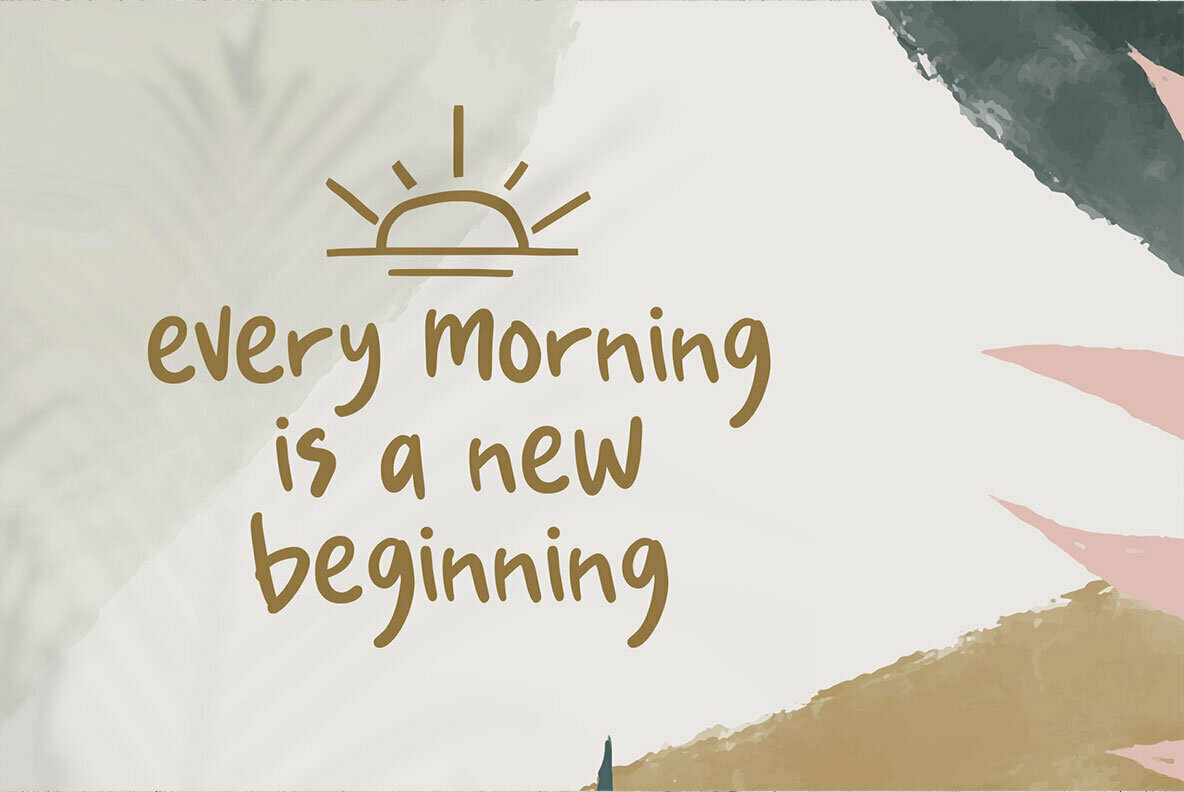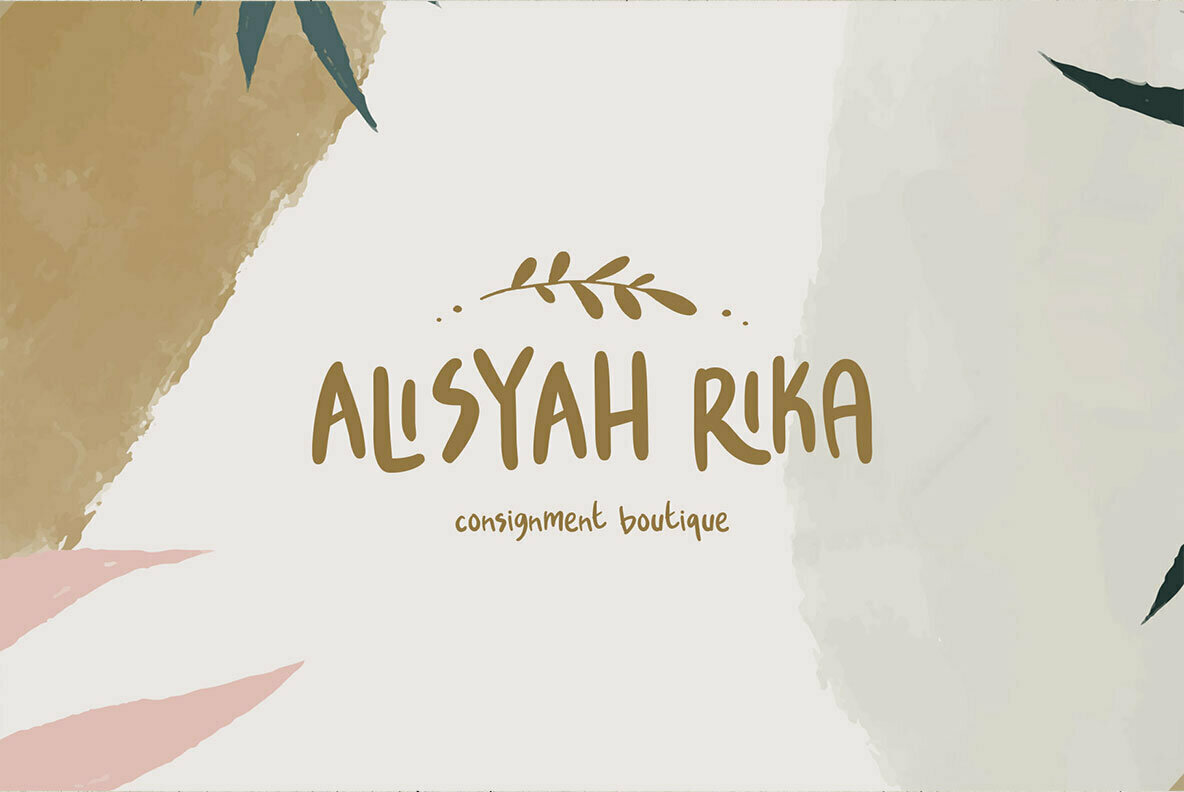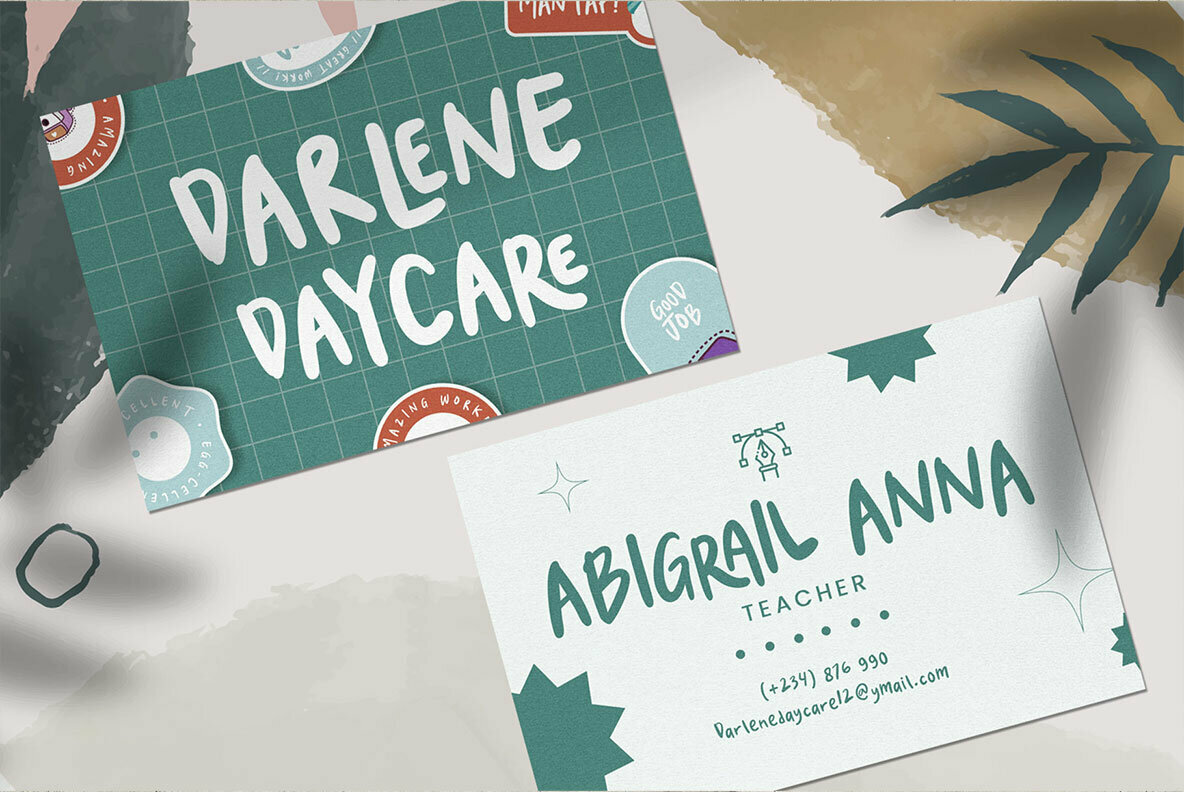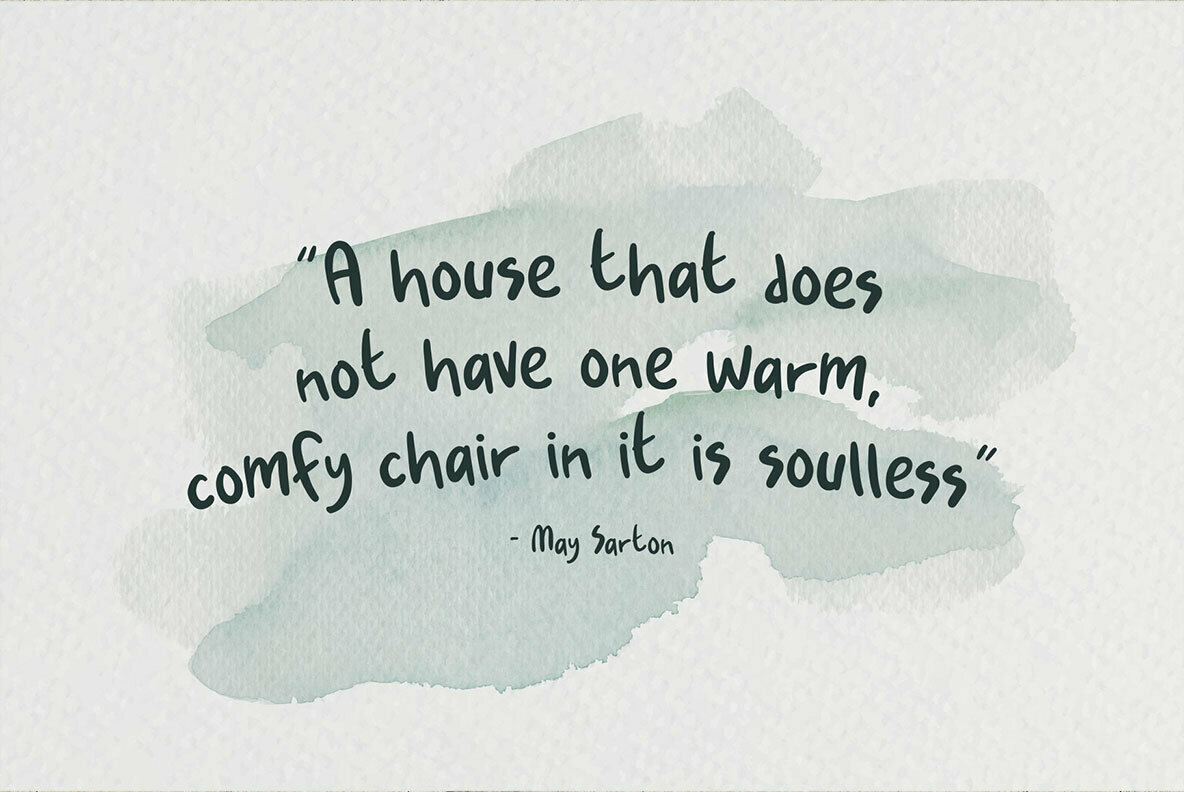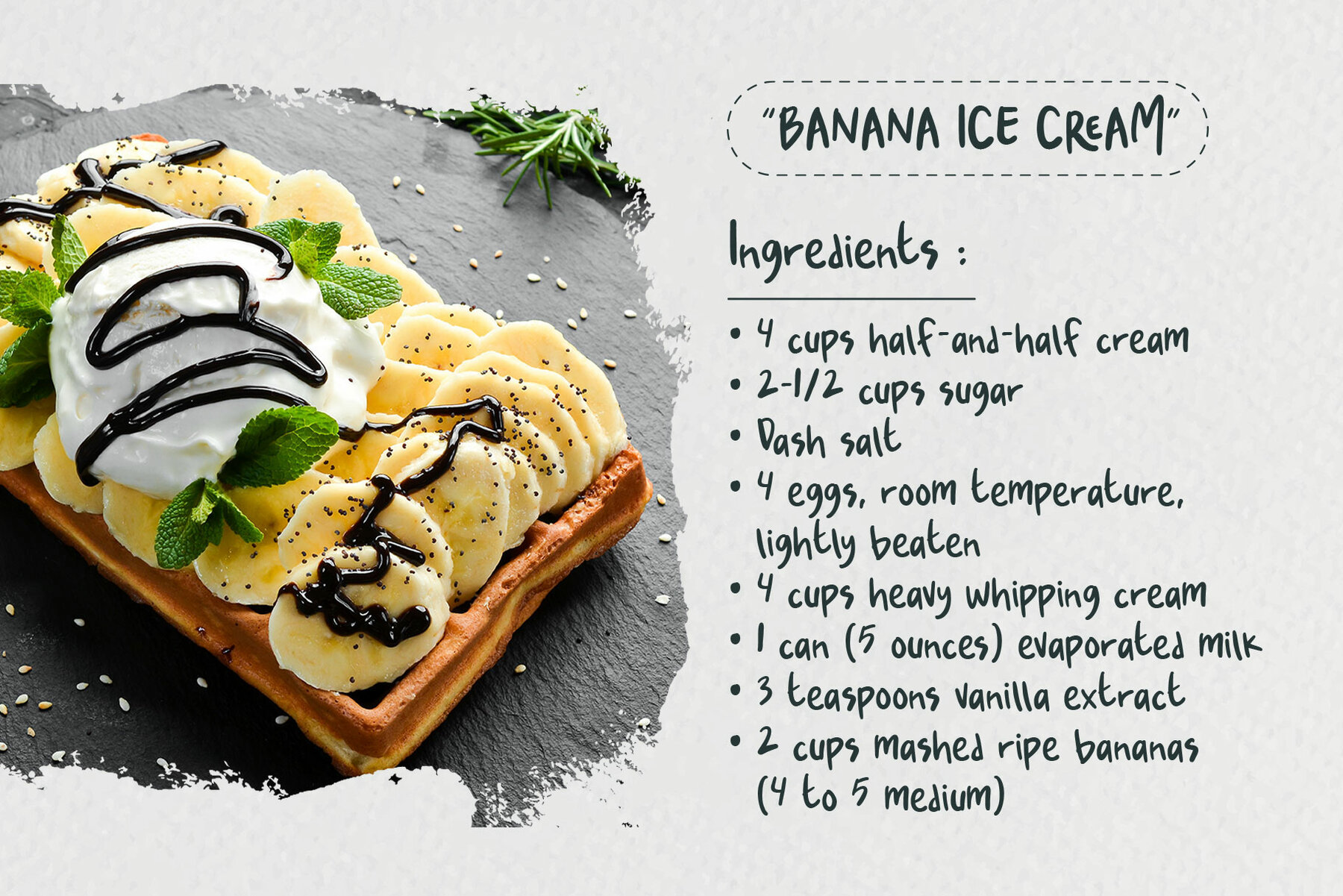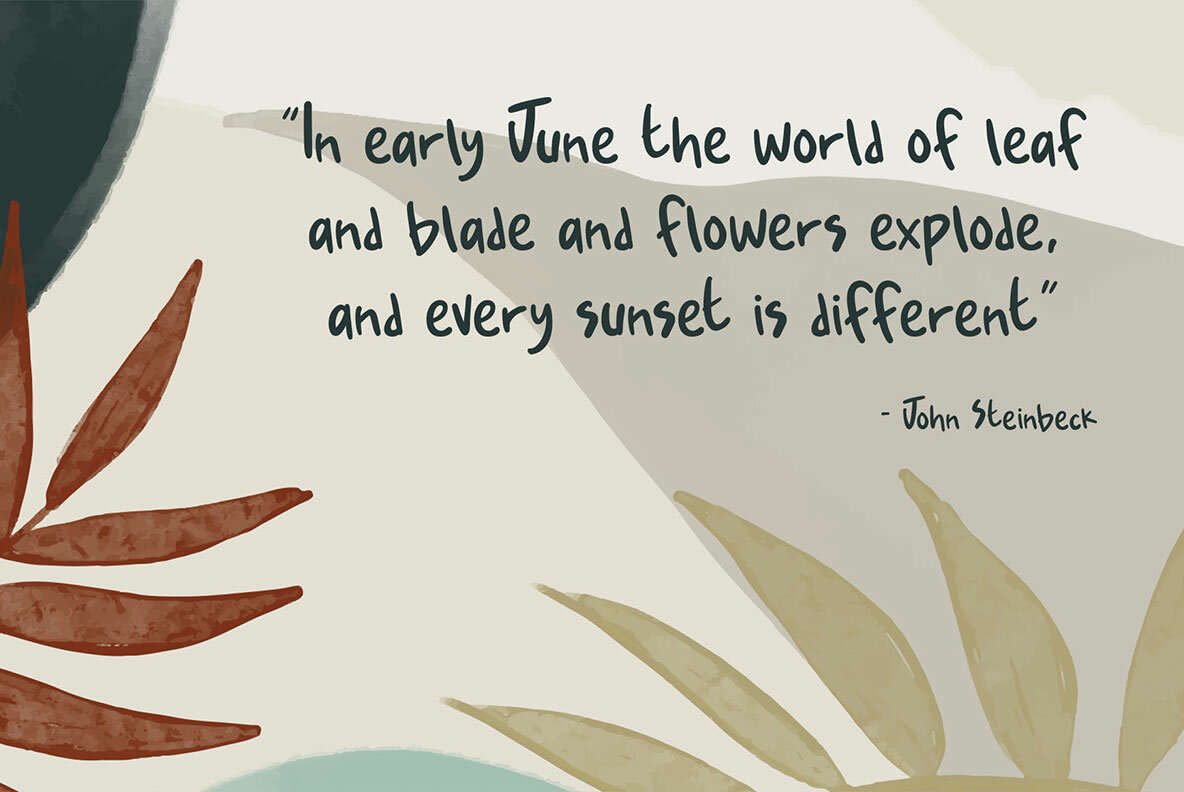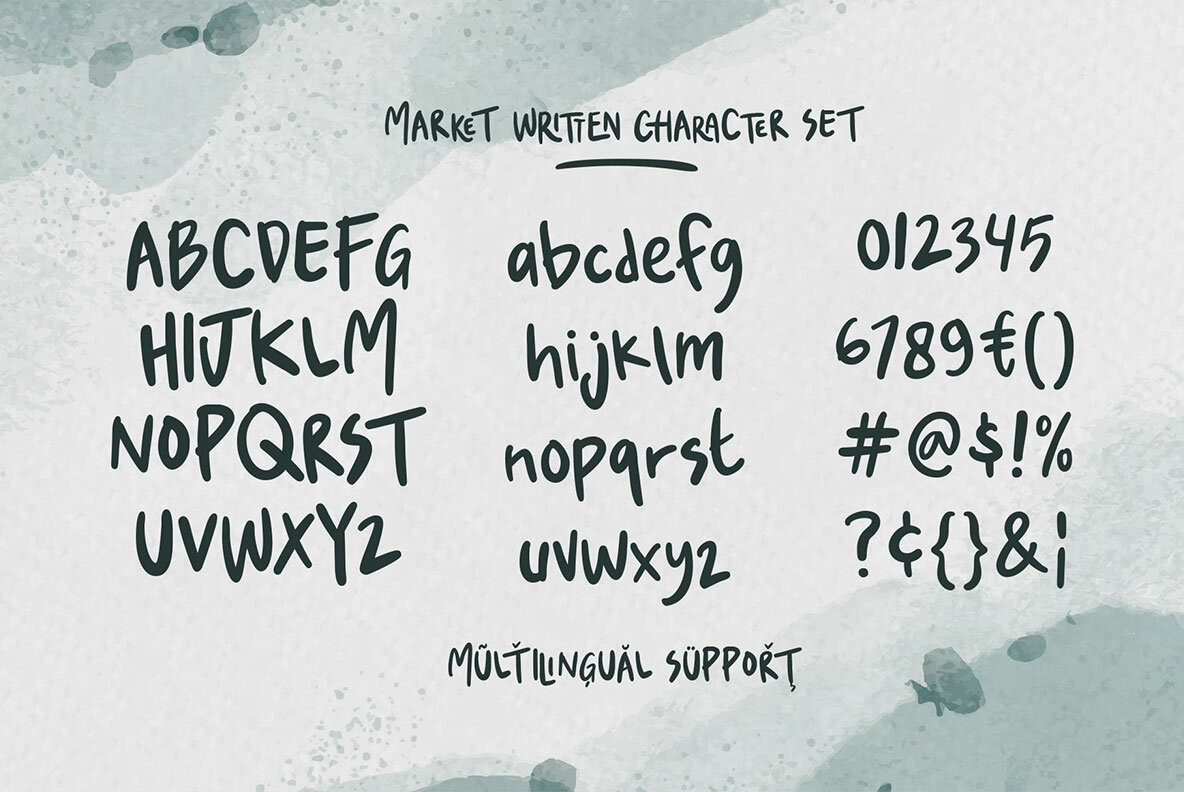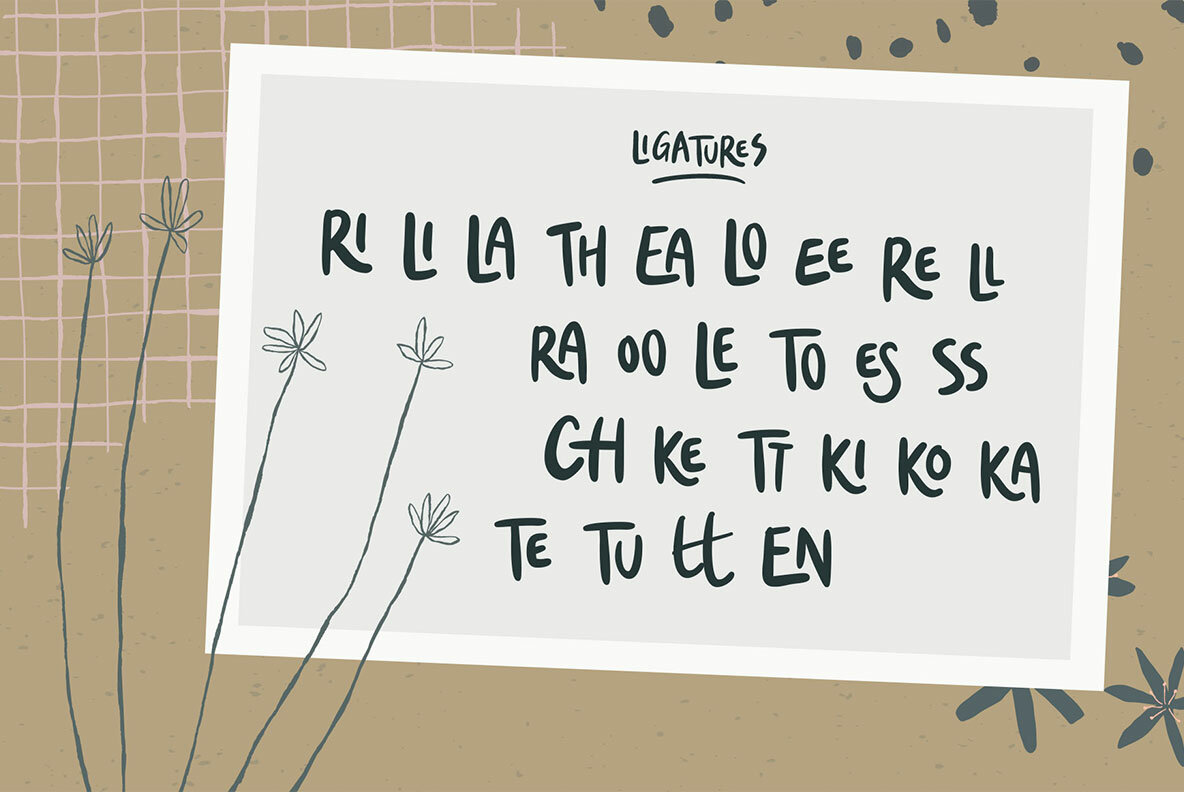
Market Written Font
Market-written is a font created by the natural handwriting and casual minimalist design. Crafted with simple words, this typeface has a bouncy feel that makes it perfect for menus or cards! It also looks great when used in body text as well; especially on book covers where you want something more playful than typical fonts might provide.